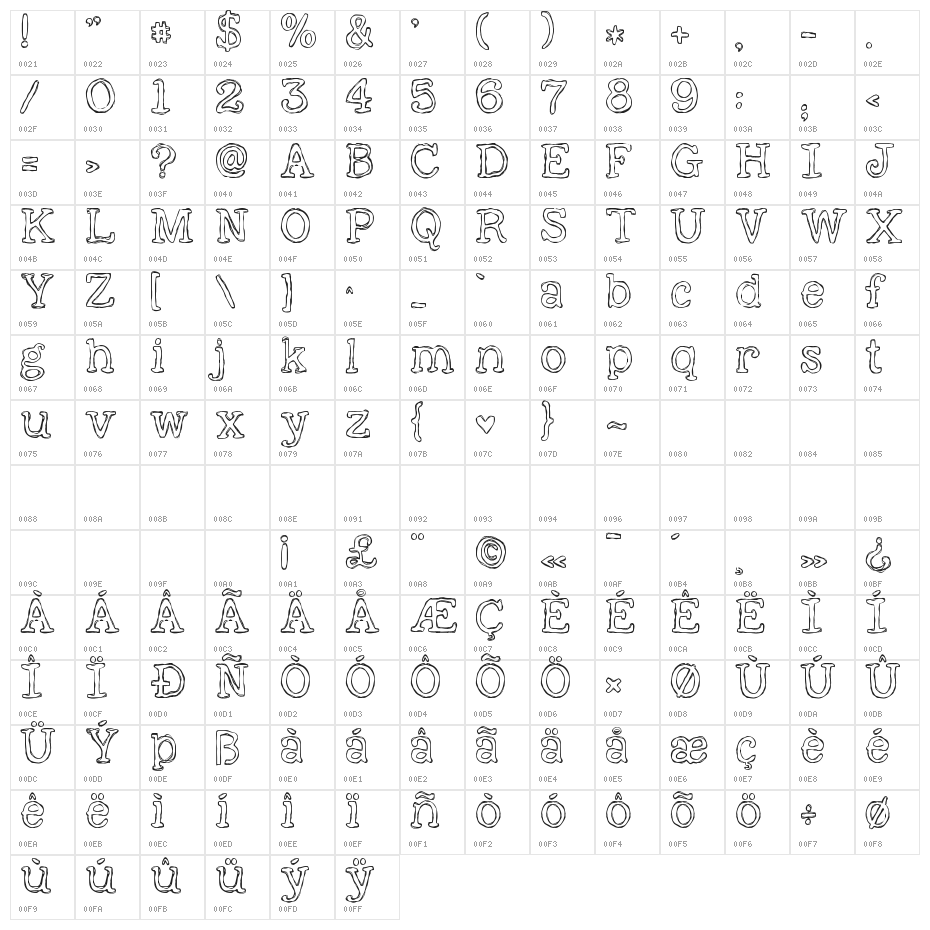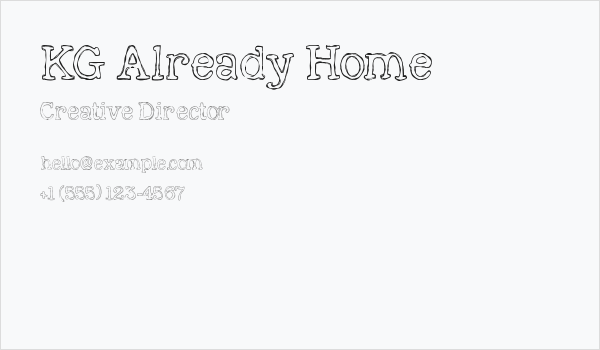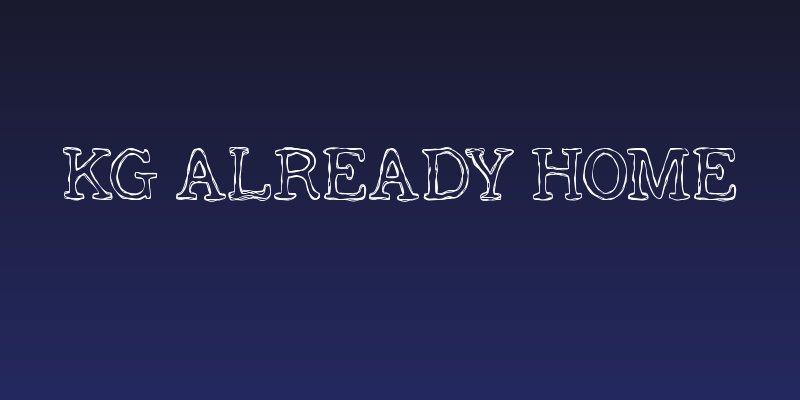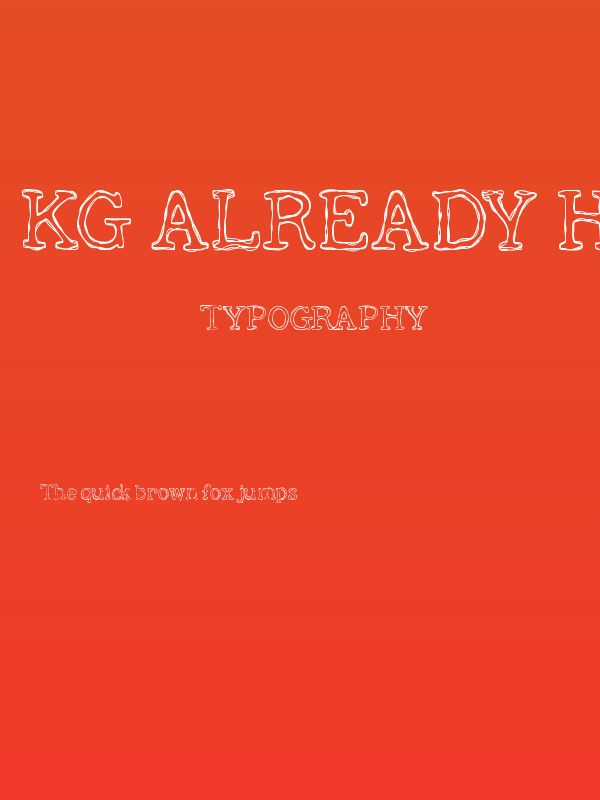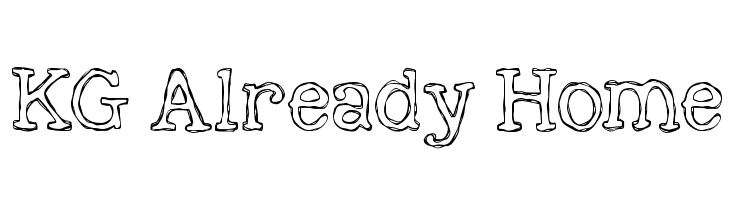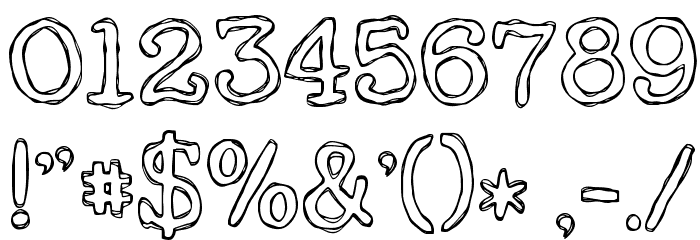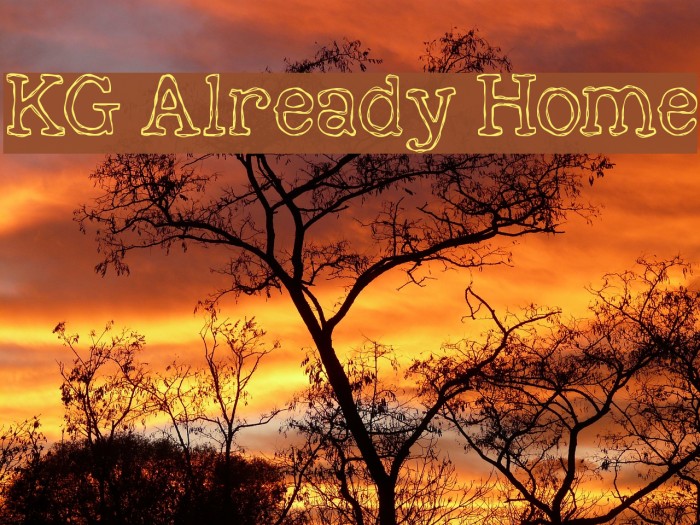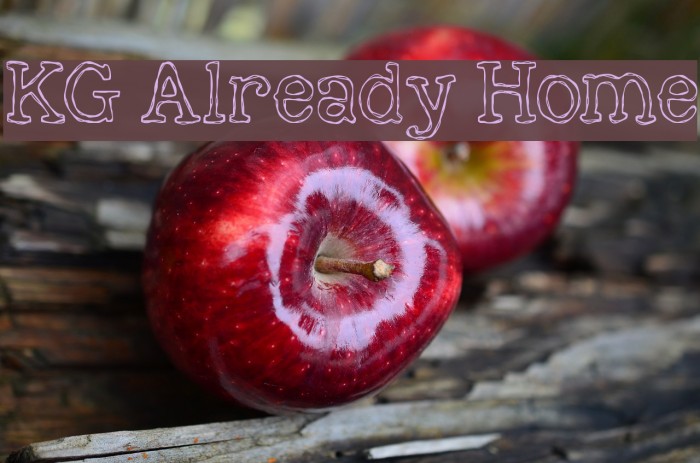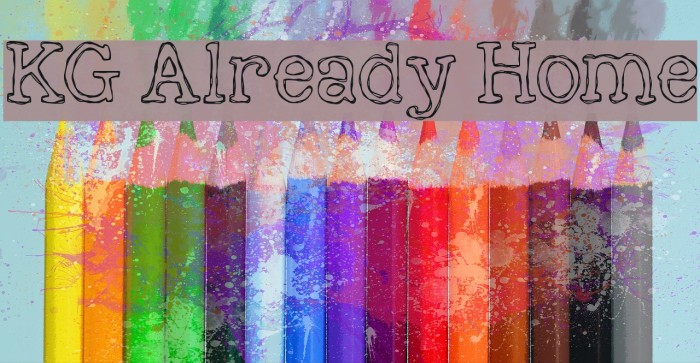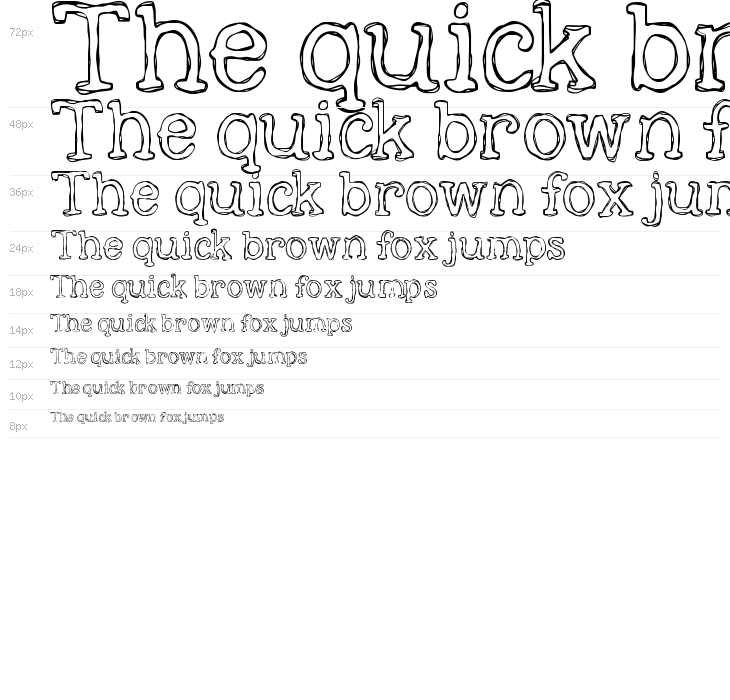
KG Already Home Font
KG Already Home Description
This font features a playful and whimsical style with a hand-drawn appearance. The characters have a unique outline effect, giving them a slightly three-dimensional look. Each letter is distinct, with irregular curves and edges that add to its charm. The font maintains a consistent thickness throughout, with moderate spacing between characters, ensuring readability while preserving its artistic flair. The numbers and special characters follow the same design principles, making it versatile for various creative applications.
| Overall Style | Whimsical |
| Proposed Projects | Ideal for children's book covers, playful posters, greeting cards, and creative branding projects. |